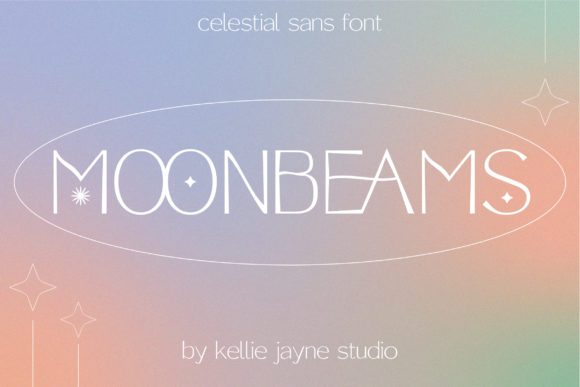
Introducing Moonbeams Font, the epitome of celestial elegance and unmatched uniqueness. As a sans serif font, Moonbeams takes your typography game to a whole new level, offering an irresistible combination of ligatures and stylistic sets adorned with captivating stars and enchanting moons. Brace yourself for a minimalistic yet funky journey that will revolutionize your branding, logos, and more.
Crafted with utmost care and precision by the talented kelliejaynestudio, Moonbeams Font has been specifically designed to captivate and mesmerize. Every curve and stroke exudes an aura of celestial beauty, instantly elevating your designs to the realm of luxury and sophistication.
Imagine immersing your audience in a world where every letter is a shining star, where the moonlight guides their gaze across your captivating visuals. Moonbeams Font allows you to effortlessly create an ethereal atmosphere that leaves a lasting impression on anyone who beholds it.
With its versatile range of ligatures and stylistic sets, Moonbeams provides endless possibilities for creative expression. Whether you're designing a high-end fashion brand, a luxurious hotel logo, or an exquisite product packaging, this font will effortlessly elevate your creations, making them truly unforgettable.
Embrace the power of Moonbeams Font and unlock a world of breathtaking possibilities. Its sleek and modern aesthetic combined with the celestial elements will infuse your designs with a touch of magic. Let your imagination run wild as you explore the boundless potential of this font, transforming your projects into visual masterpieces that demand attention.
Immerse yourself in the enchanting allure of Moonbeams Font and witness the wonders it can do for your brand. Stand out from the crowd and leave your competitors in awe as you showcase your products and services with an elegance that is simply unmatched.